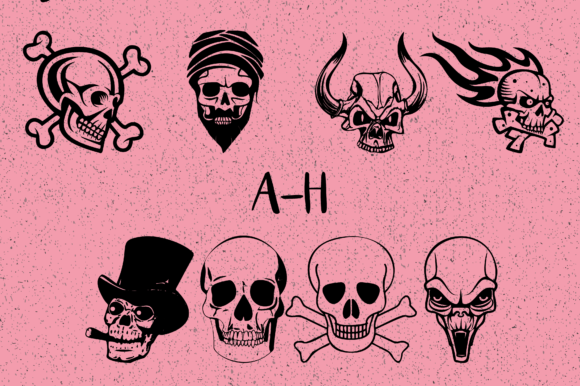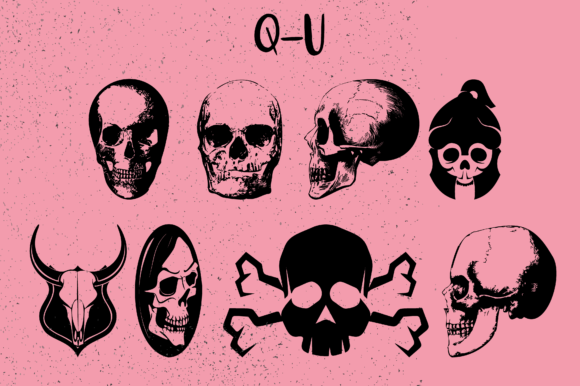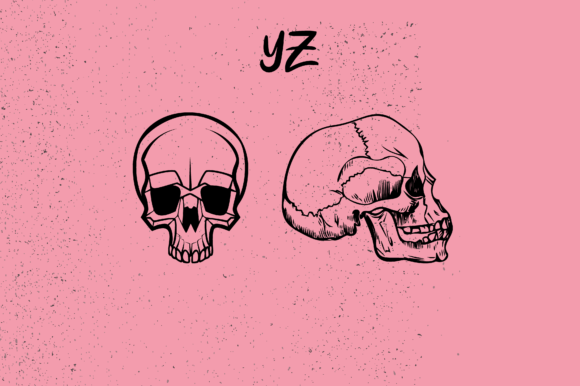
AboutX Skull X Font
X Skull X is a bold and spooky dingbats font that allows you to create a variety of skull designs by typing letters and numbers. Designed with Halloween and scary themes in mind, this font is the perfect choice for adding an eerie and macabre touch to your projects.
With X Skull X, you can easily generate up to 62 unique skull symbols, each with its own distinct style and character. From traditional skull illustrations to more stylized and abstract designs, this font offers a range of options to suit your creative needs.
Whether you’re designing Halloween party invitations, creating spooky posters, or working on a horror-themed project, X Skull X can help you create impactful and chilling visuals. The versatility of the font allows you to incorporate the skull symbols into various design elements, such as logos, banners, t-shirts, and more.
The detailed and intricate nature of the skull glyphs in X Skull X adds an element of authenticity and realism to your designs. Each skull is crafted with attention to detail, capturing the eerie and haunting essence that is associated with Halloween and horror themes.
Additionally, X Skull X can be used for digital and print purposes, making it suitable for both online and offline projects. Whether you’re creating social media graphics, website banners, or printed materials, this font will make your designs stand out and leave a lasting impression.
So, unleash your creativity and embrace the spooky spirit with X Skull X. This dingbats font offers a wide range of skull symbols that will add a chilling and captivating element to any project with a scary theme. Let X Skull X be your go-to font for all things Halloween and beyond!